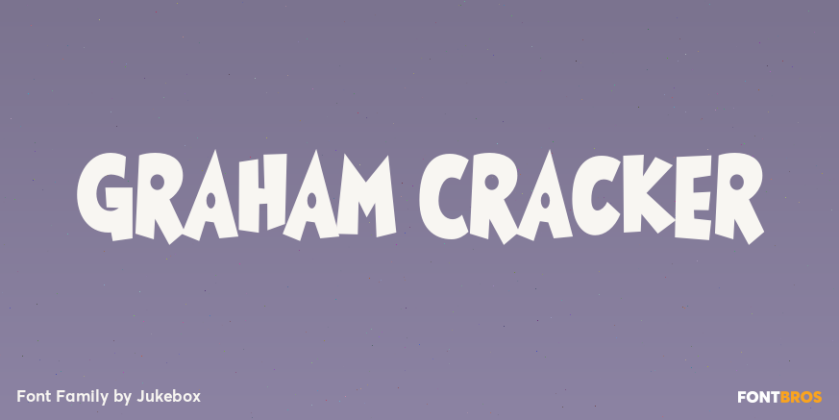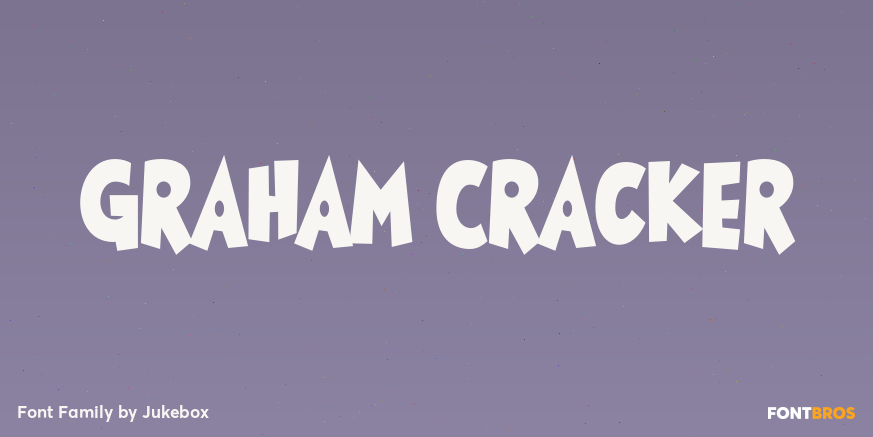
Graham Cracker
About Graham Cracker
Graham Cracker is a fun, cartoony and child-like font that can\’t help but fill you with happiness! The font was inspired by an old movie poster, and contains over 175 interlocking ligatures that add a hand-lettered feel. Stylistic substitutions like this…